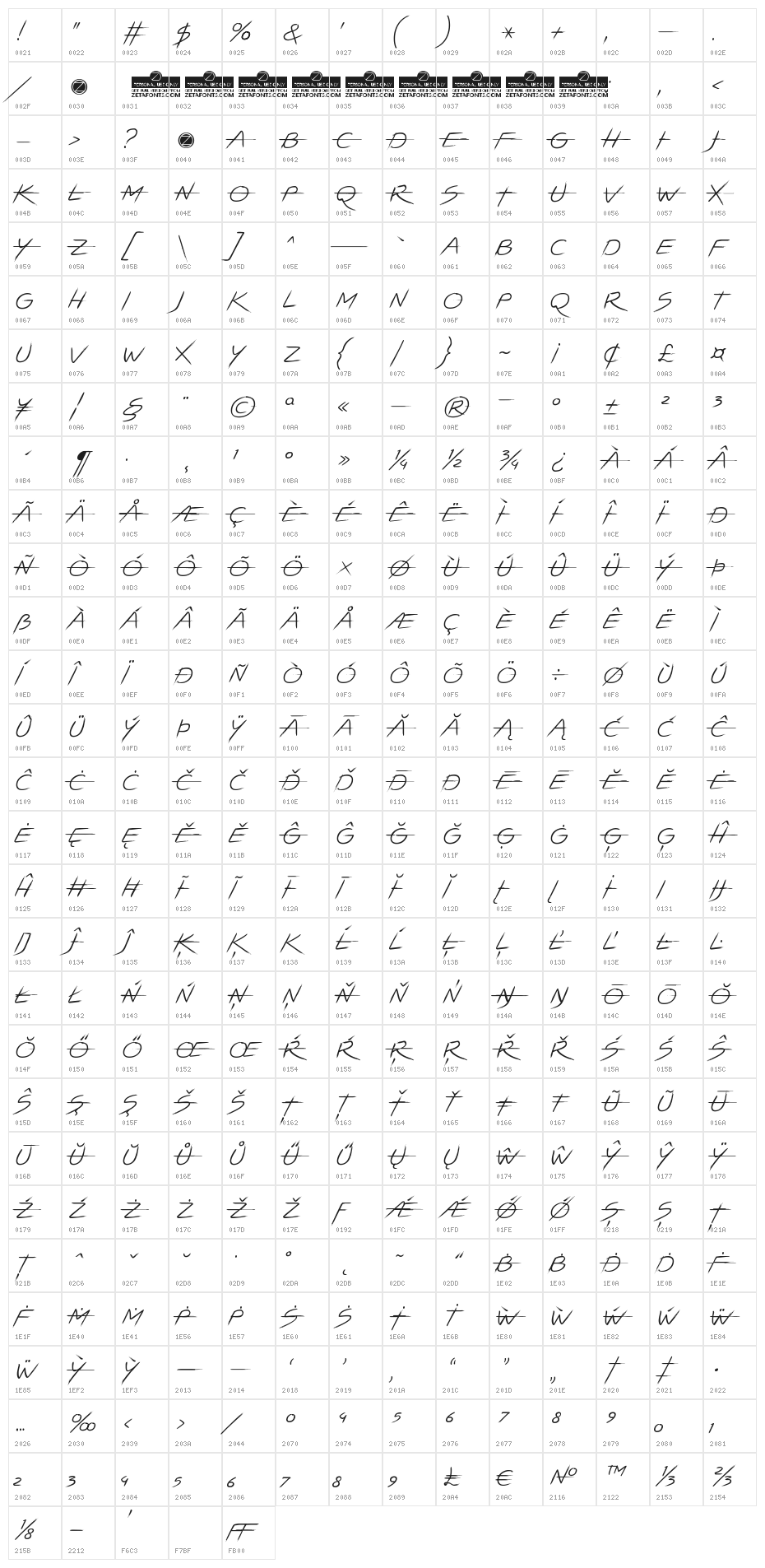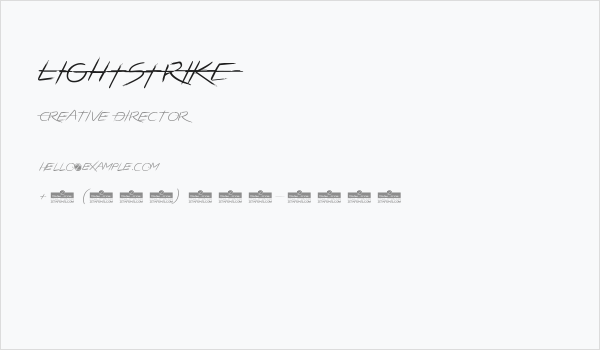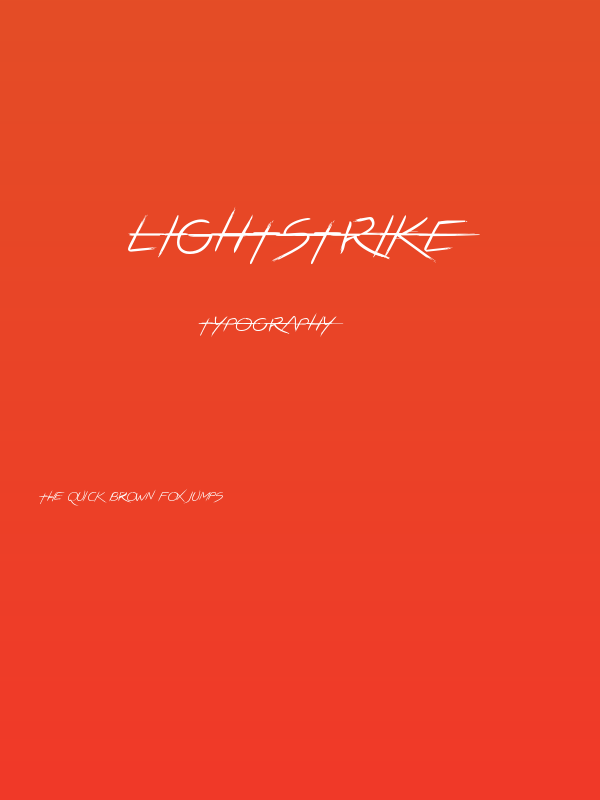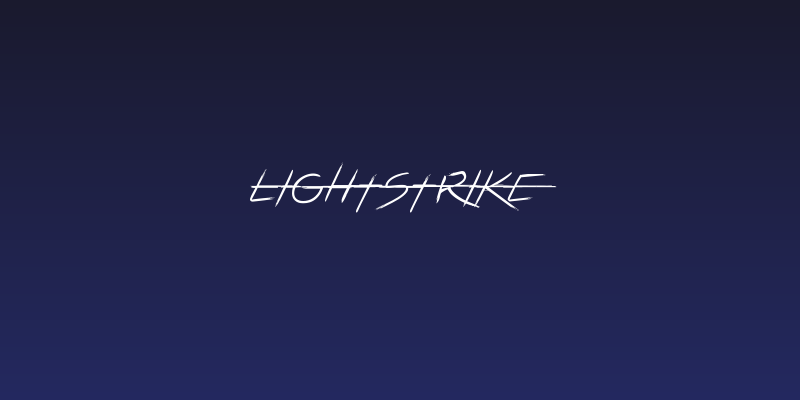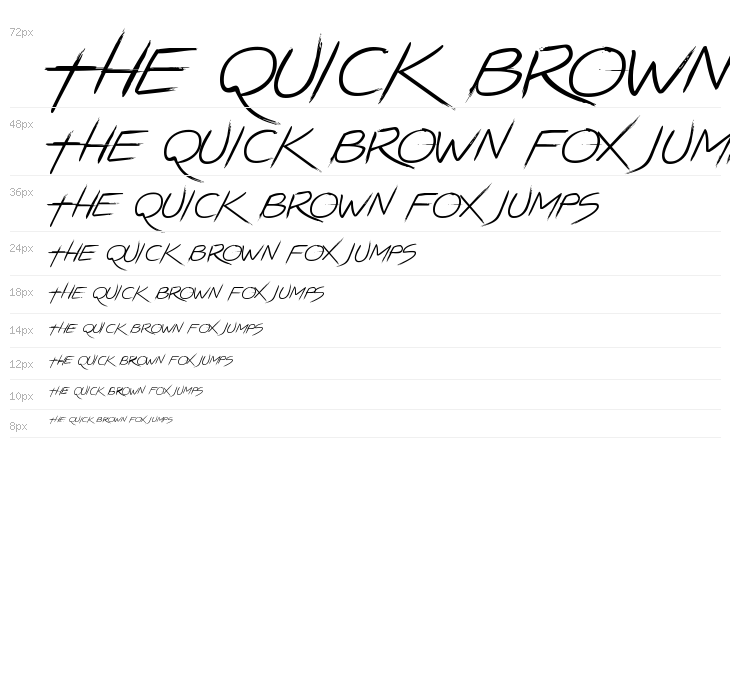
LIGHTSTRIKE Font
LIGHTSTRIKE Description
This font exhibits a dynamic and edgy style, characterized by sharp, angular strokes that give it a sense of movement and energy. The letters are slightly slanted, resembling a handwritten script with a modern twist. The uppercase and lowercase letters maintain a consistent style, with elongated lines and pointed edges that create a striking visual impact. The numerals and special characters follow the same design principles, ensuring uniformity across the typeface. This font's unique appearance makes it suitable for projects that require a bold and contemporary aesthetic.
| Use Case | Logos, Posters, Branding |
| Proposed Projects | Ideal for branding, logos, posters, and any design that seeks to convey energy and modernity. |